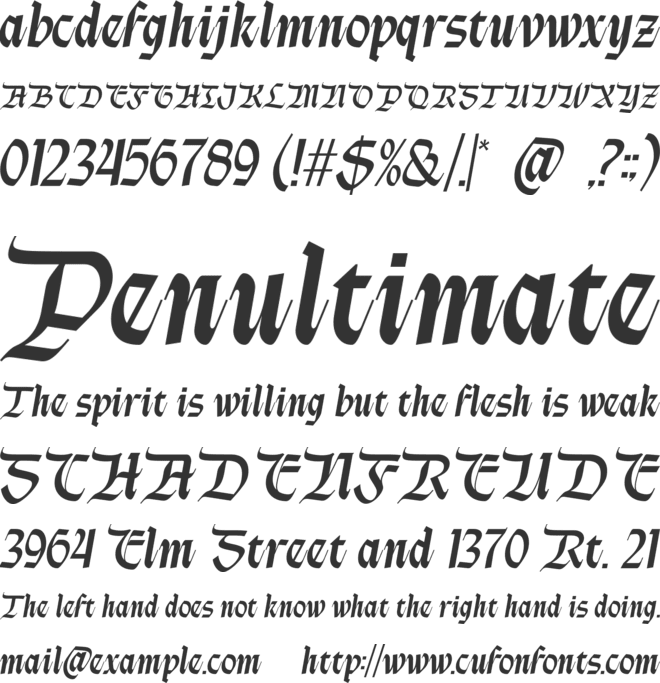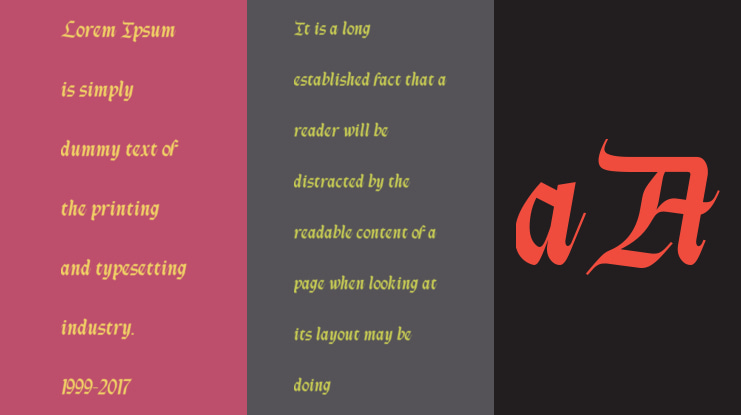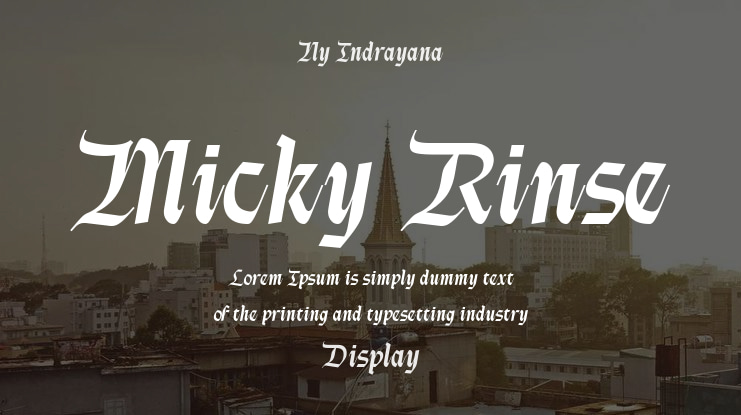
Micky Rinse Font
Micky Rinse Typeface - Unleash the Savage Elegance
Step into a realm where raw power and intricate artistry collide. Introducing Micky Rinse, a blackletter typeface that defies convention and breathes a fierce, modern spirit into gothic tradition. Designed with meticulous attention to detail by Alit Design Studio, Micky Rinse is not just a font—it's a statement.
With its razor-sharp edges, dramatic swashes, and aggressive yet elegant flow, Micky Rinse captures the rebellious soul of tattoo culture, the raw energy of heavy metal, and the dark allure of epic fantasy. Each letter is crafted to command attention, making it the ultimate tool for projects that demand a bold and unforgettable identity.